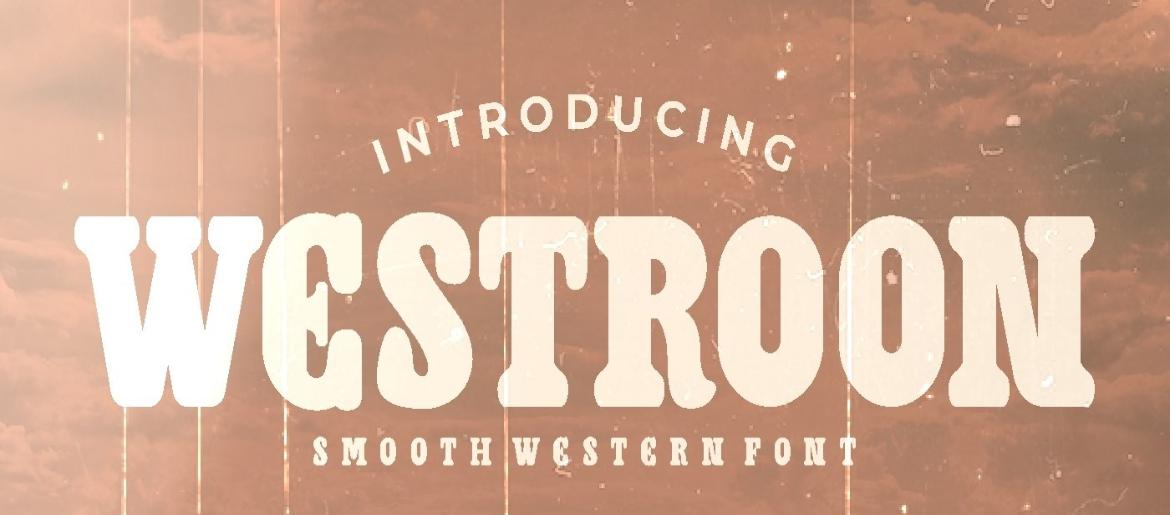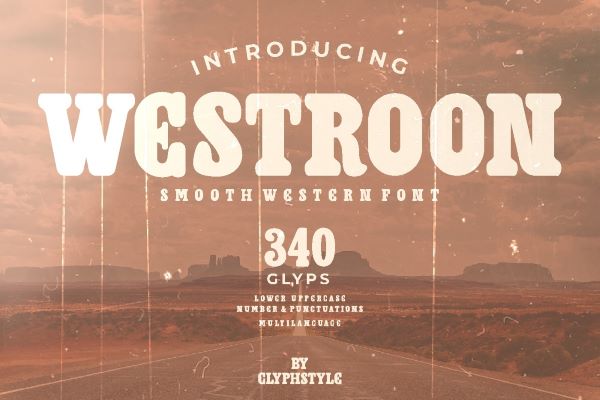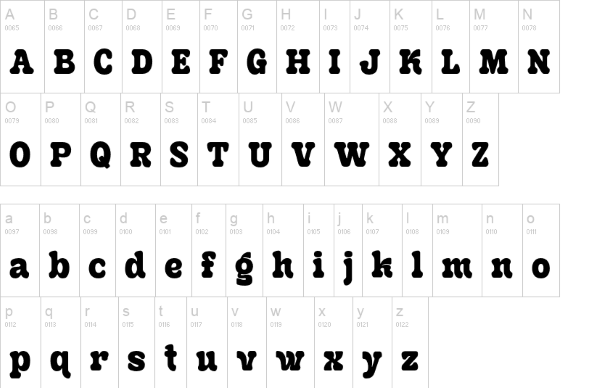
Westroon Font
Westroon Font is a western-style serif typeface featuring thick, smoothly curved serifs that give it a bold yet relaxed appearance. The letterforms feel strong without stiffness, creating a balanced look that’s both rugged and refined.
Westroon is ideal for branding projects, logos, wedding designs, social media graphics, advertisements, packaging, labels, photography, watermarks, invitations, stationery, and any design that calls for a classic western atmosphere.